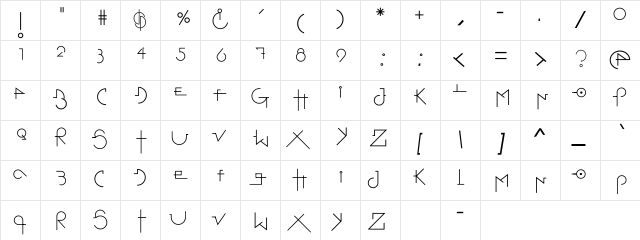
Stretched Signature Flex is a composed and adaptable typeface that performs quietly and consistently across a wide range of design contexts.
Pro Tip: Use Stretched Signature Flex in both headline and body roles to test its range before committing to a single application.